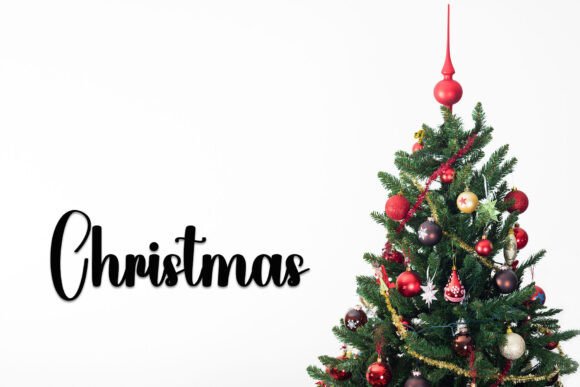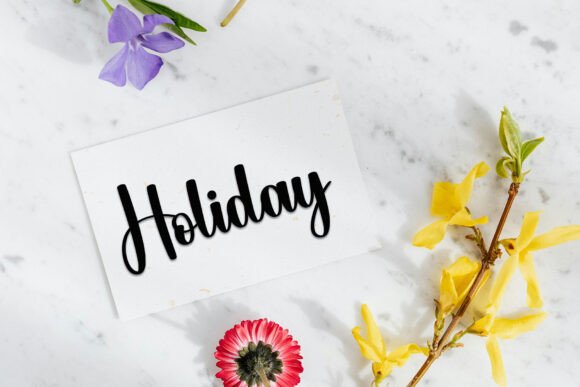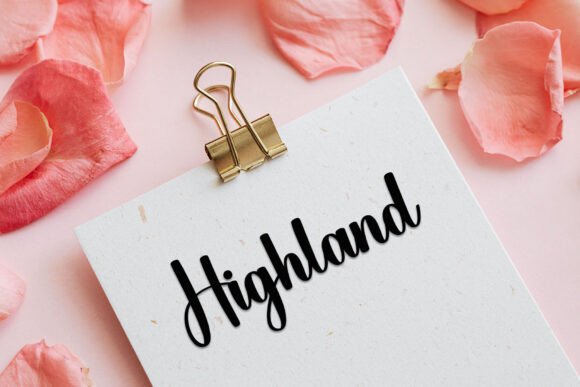
Introduction to Disney Beach Font
Disney Beach is a sweet and cursive handwritten font.
This gentle font will look gorgeous on a variety of design ideas It will add a joyful and romantic touch to each of your projects.
Key Features of Disney Beach Font
Why Choose Disney Beach Font?
Disney Beach Font offers exceptional quality and versatility, making it a valuable addition to your design toolkit. Whether you’re creating for personal projects or commercial use, Disney Beach Font delivers professional results.